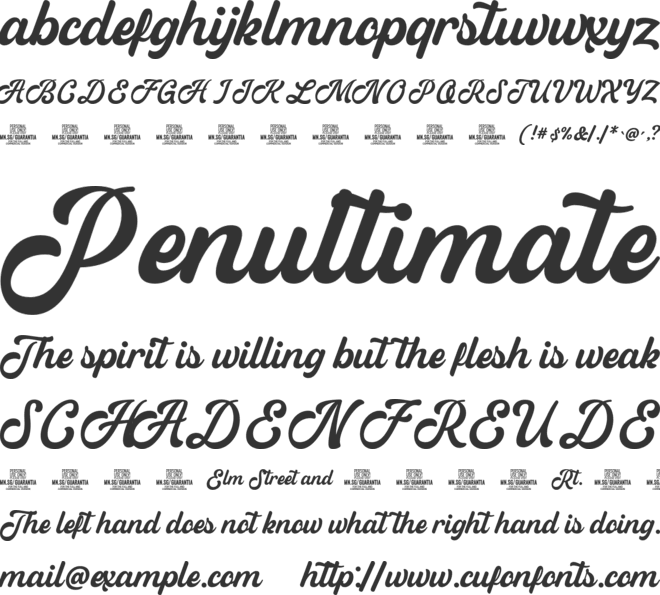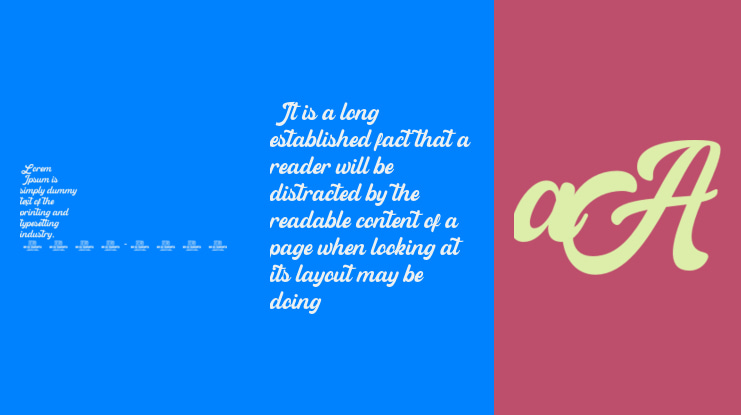
Guarantia PERSONAL USE Font
Mans Greback
NOTE: This font is for PERSONAL USE ONLY!To purchase a commercial license, visit:https://www.mansgreback.com/product/guarantiaGuarantia is a rustic script typeface with a warm, grounded feel, inspired by traditional lettering and hand-painted signs. It carries a sense of heritage without feeling stiff, combining softness with confident strokes. The letters flow with an easy rhythm, slightly irregular in a way that feels natural and human.For questions, please visit https://mansgreback.com/faq